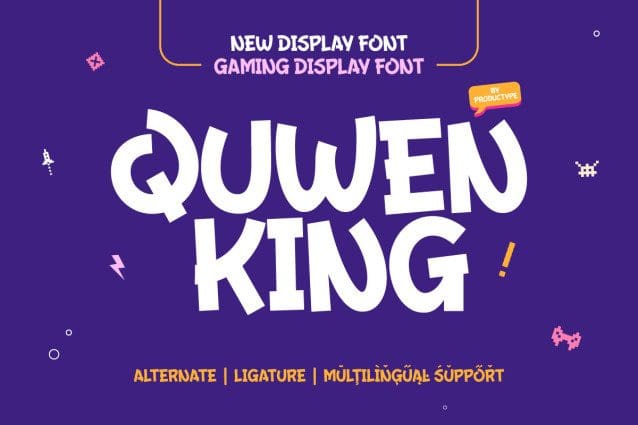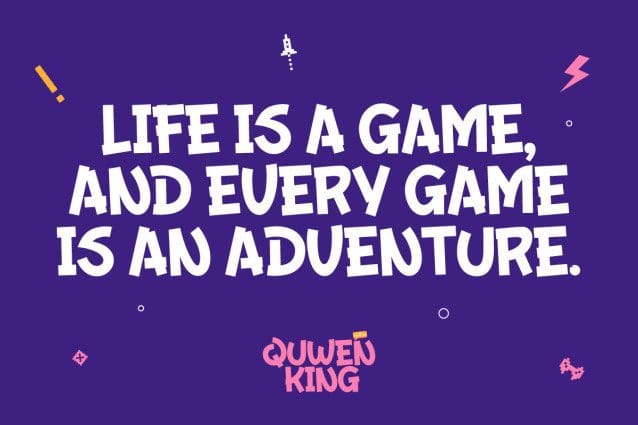
Quwen King Font
Quwen King Font is the perfect solution for projects that require a unique touch. From powerful movie displays to exciting games and stunning streaming events, this font captivates and dominates in a variety of languages.
With Quwen King, you don’t just get a font, you get the tools to bring creativity, charm, and fun to your designs.